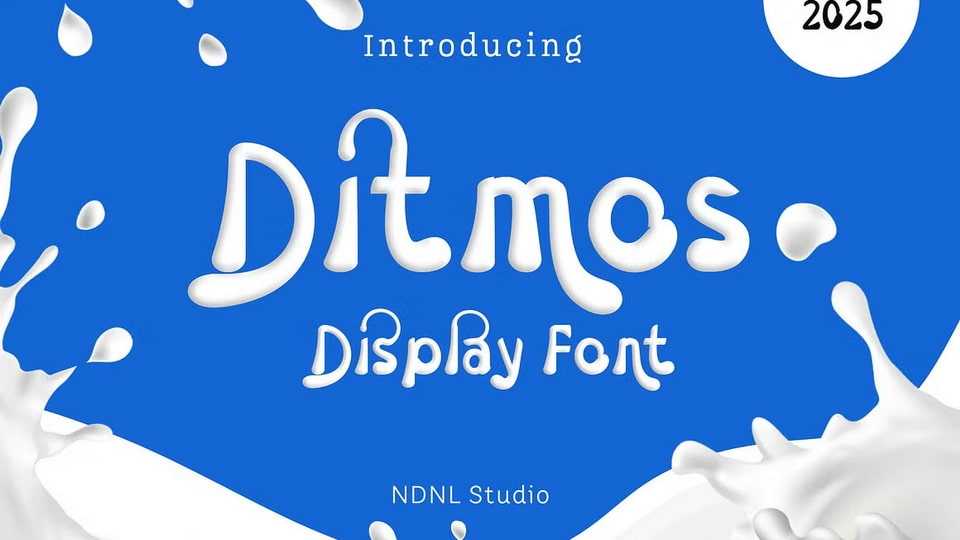
Download Ditmos font, a bold and playful display typeface that looks as smooth as milk! Its rounded, flowing shapes bring a fresh and creamy vibe to any design.
Designer: NDNL Studio